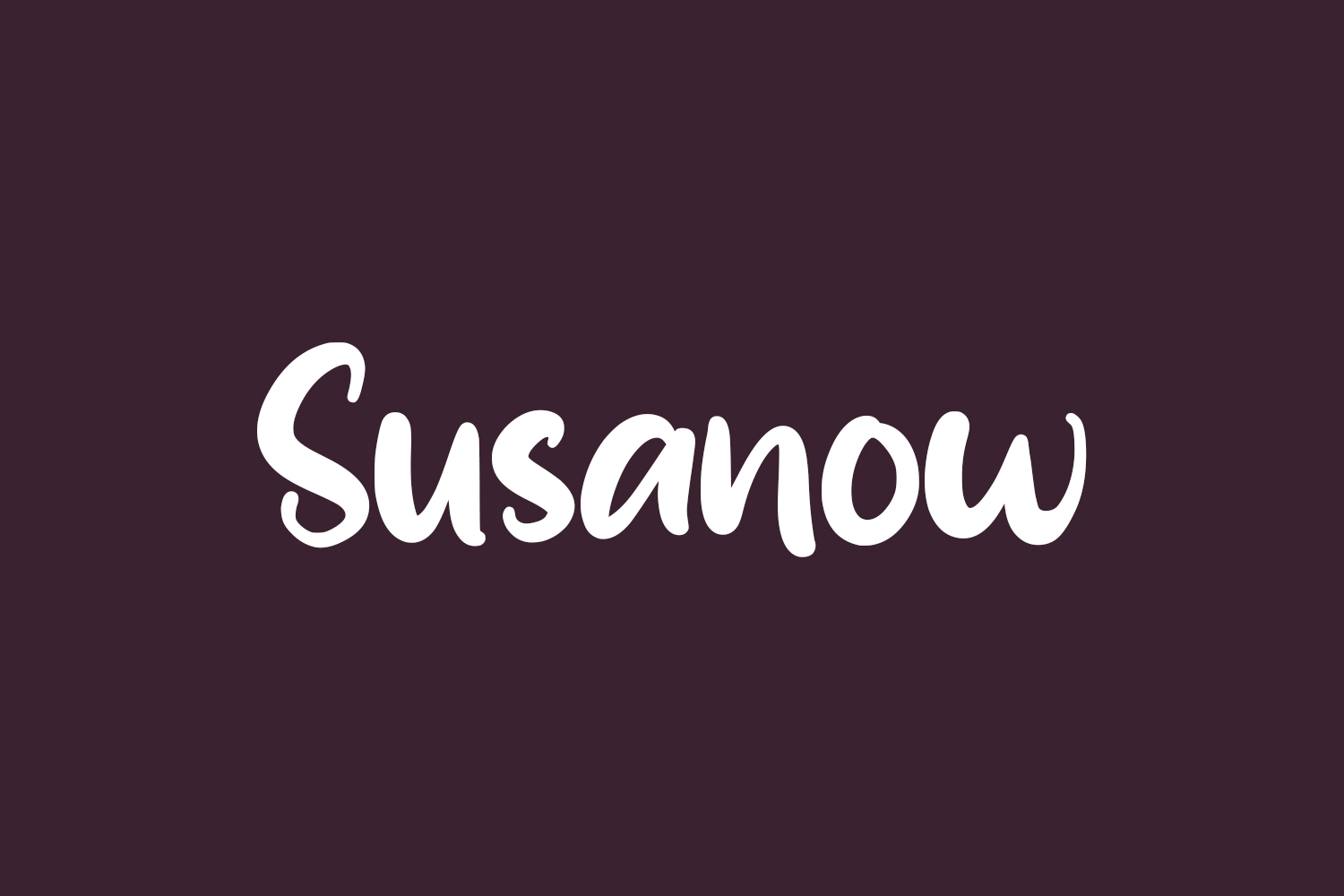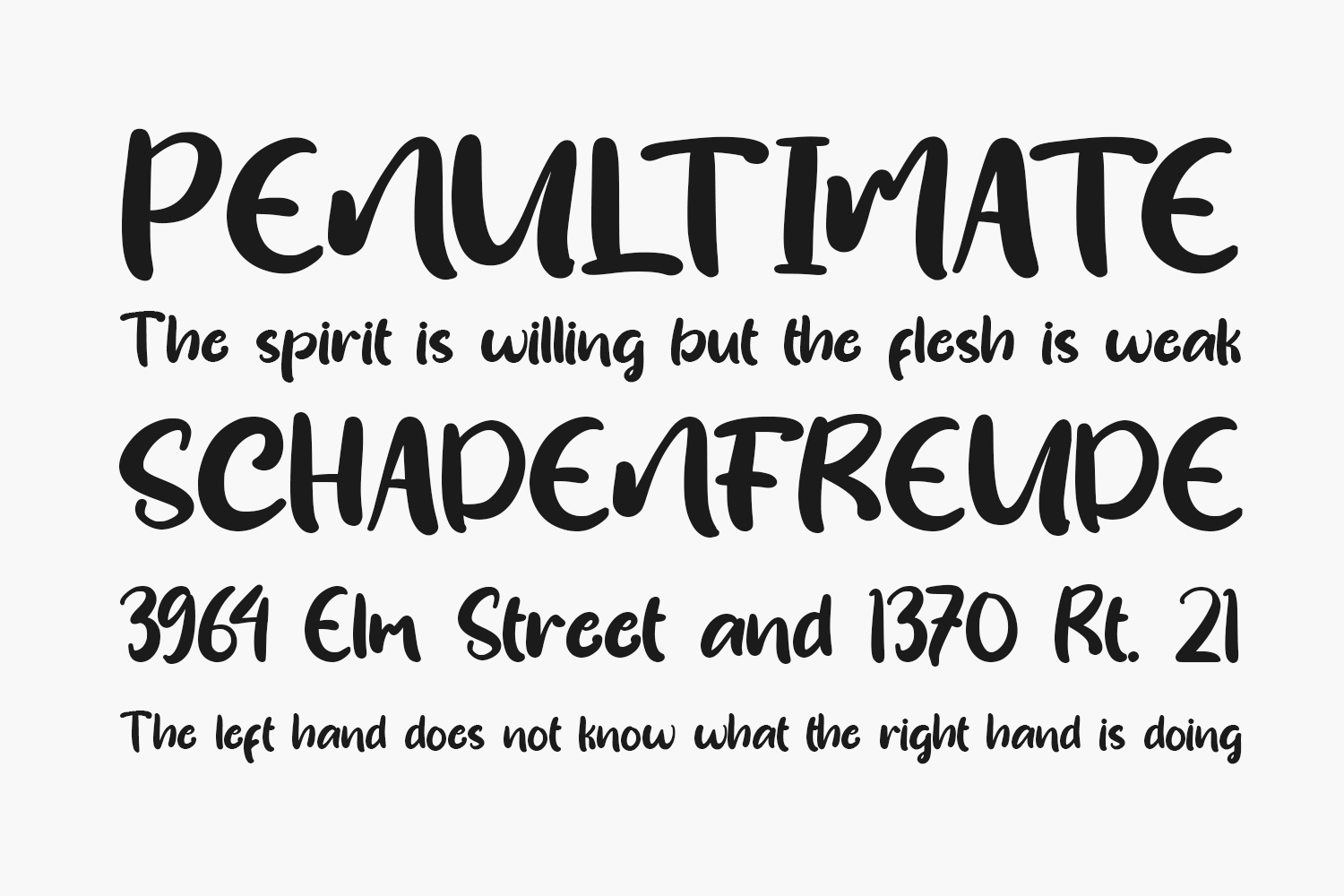
Susanow Free Font is a delicate, elegant, and free-flowing handwritten font. Its beautiful and well-balanced characters make it the perfect match for a wide pool of designs. Add it to your most creative ideas, and notice how it makes them come alive.
Designed by StringLabs